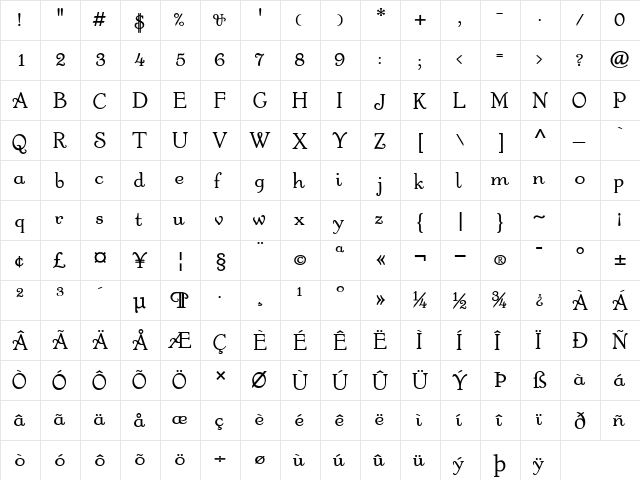
Fanciful Bold
Design Context for Fanciful Typeface
Fanciful is a composed and adaptable typeface that performs quietly and consistently across a wide range of design contexts. The heavy weight commands attention and anchors typographic hierarchies.